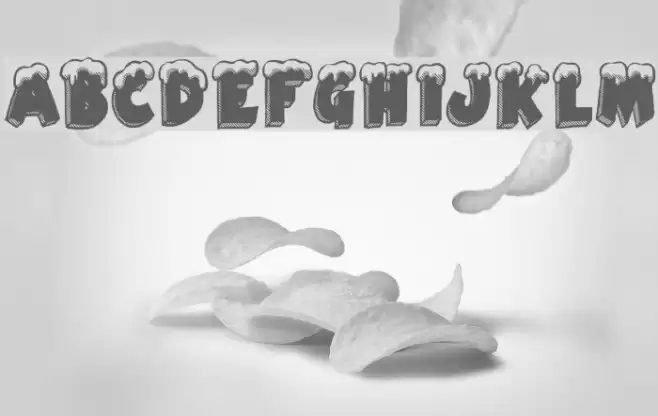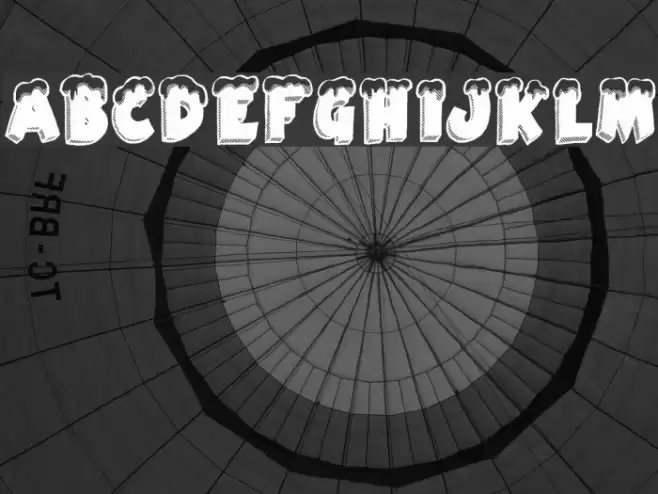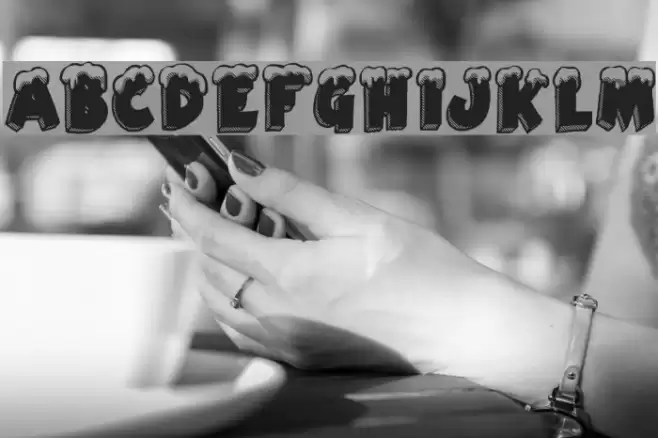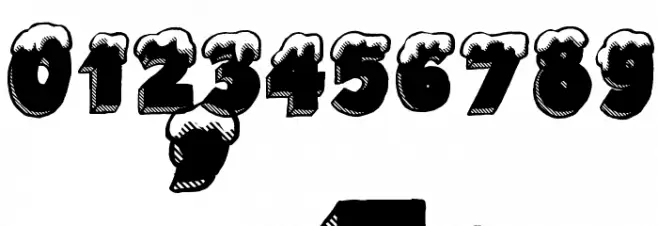
Black Santa Font
Black Santa Description
This playful and festive font features bold, three-dimensional letters adorned with a snow-like texture on top, reminiscent of a winter wonderland. The characters are thick and robust, with a shadow effect that adds depth and a sense of fun. The snow caps on each letter give it a whimsical and seasonal feel, perfect for holiday-themed projects. The font maintains a consistent style across uppercase, lowercase, and numeric characters, with special characters also following the same snowy theme. Its unique design makes it stand out, capturing the essence of winter and holiday cheer.
A bold, festive font with snow-capped, three-dimensional letters perfect for holiday themes from Uncategorized fonts.
- Proposed Projects: Ideal for Christmas cards, holiday banners, festive event invitations, and winter-themed advertisements.